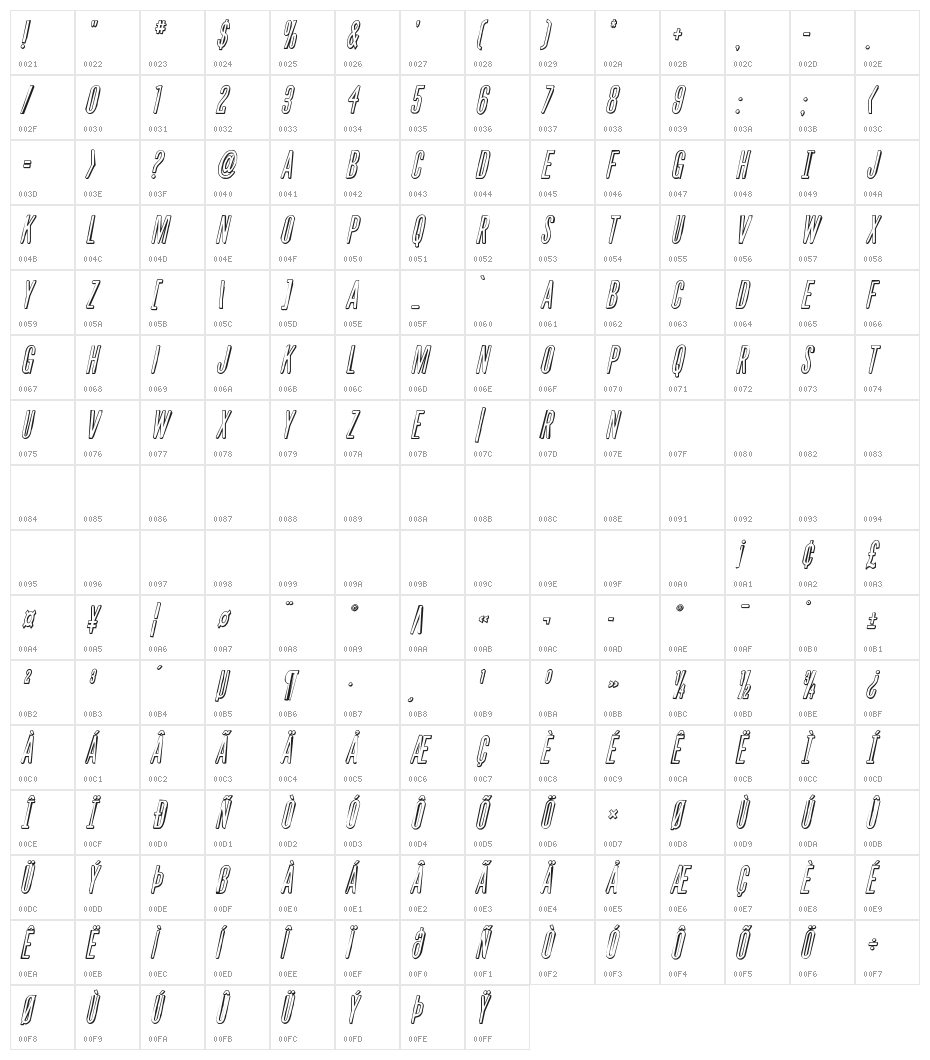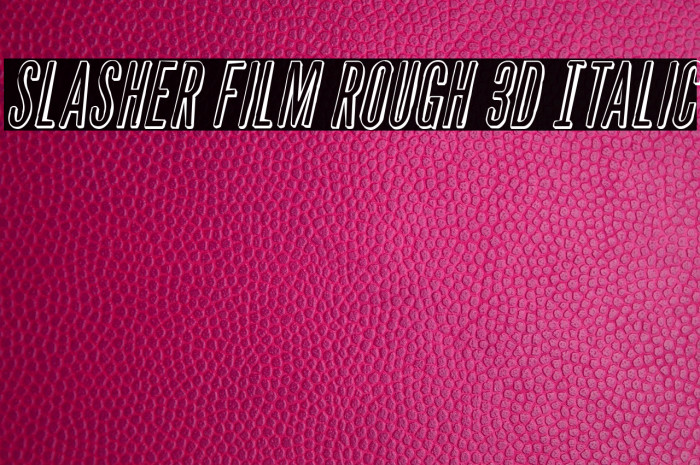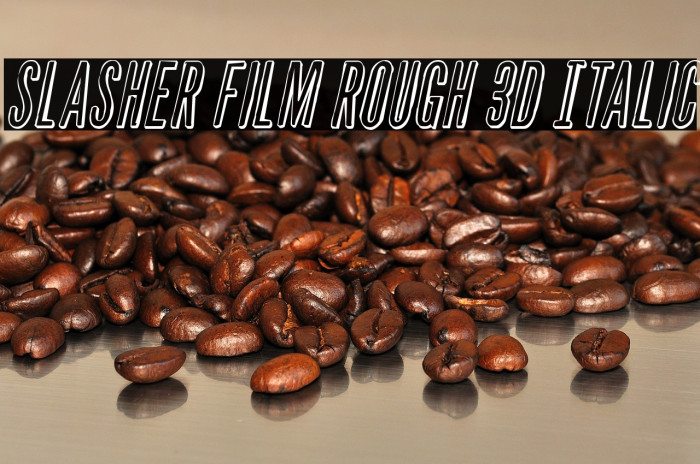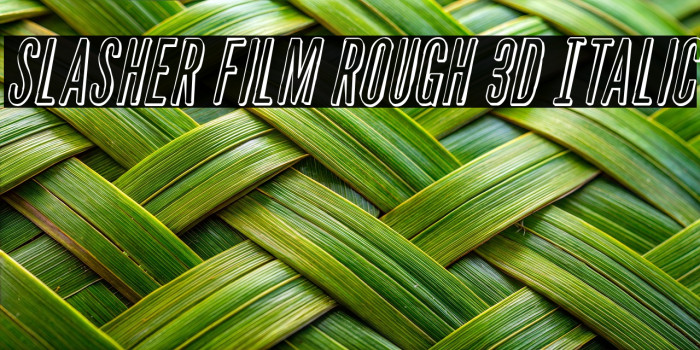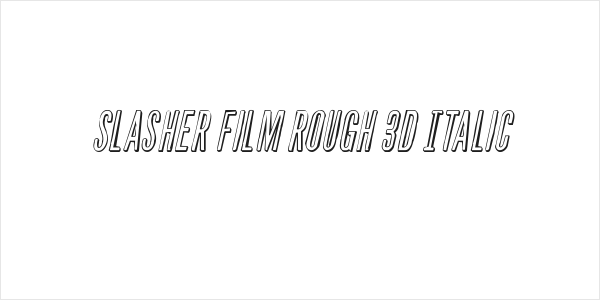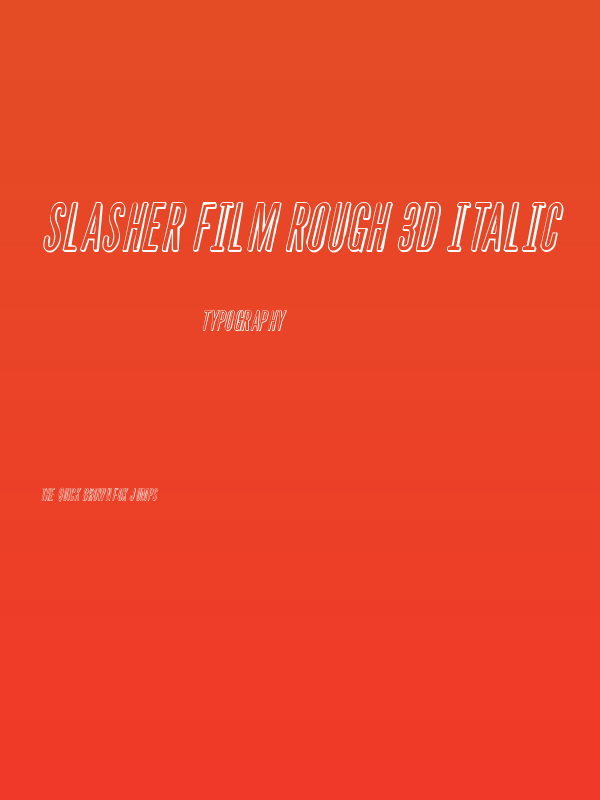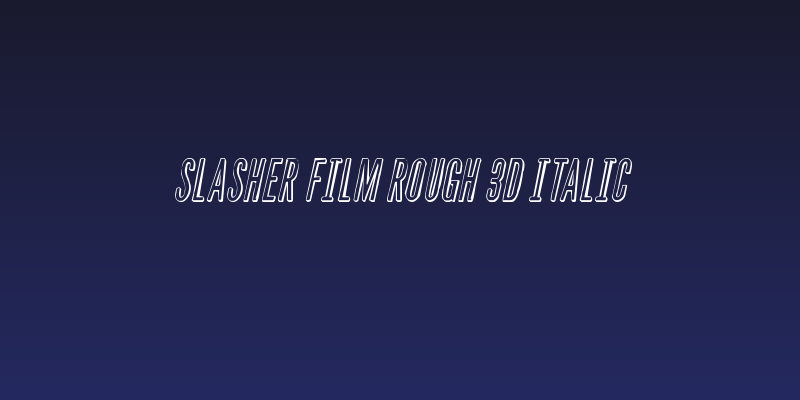
Slasher Film Rough 3D Italic Font
Slasher Film Rough 3D Italic Description
This font features a bold, 3D italic style with a distinct slanted appearance, giving it a dynamic and energetic look. The characters are outlined, creating a striking visual effect that enhances its boldness. The uppercase and lowercase letters maintain a consistent style, with sharp angles and clean lines. The numbers and special characters are designed to match the overall aesthetic, ensuring uniformity across all elements. This font's unique style makes it stand out, perfect for projects that require a strong visual impact.
| Proposed Projects | Ideal for movie posters, video game titles, branding for edgy products, or any project needing a bold, eye-catching typeface. |